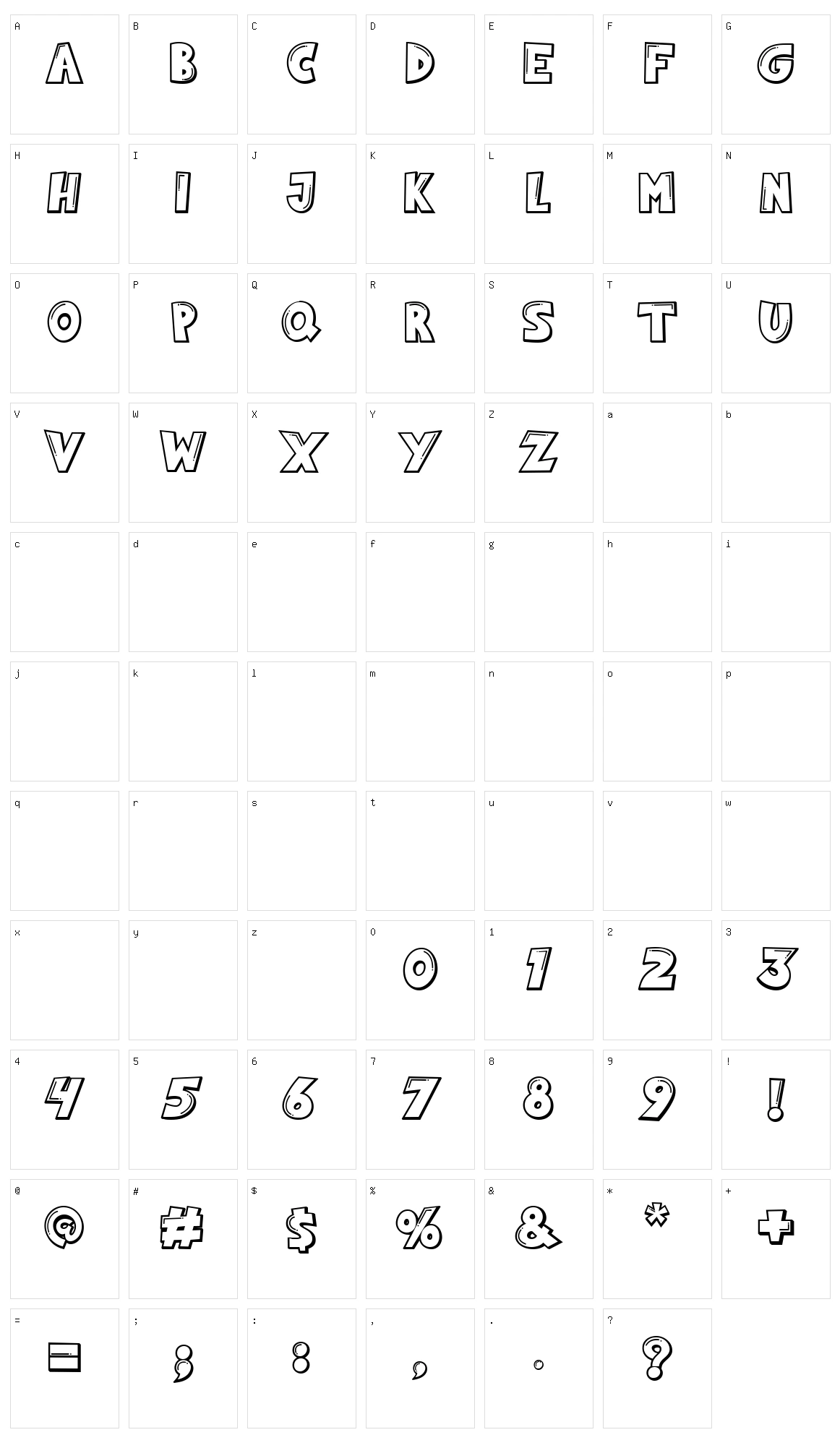
The free font Plastic Love is carefully designed by Vable Studio, showcasing a thoughtful balance of creativity and usability and falls under the Cartoon font style. When you download the ZIP file, it contains only 32.93 KB of font files, making it lightweight and quick to download. Please review the license details below to understand permitted usage and distribution rights. If license information is not available, we recommend using this font for personal projects only or contacting the author directly for commercial usage permissions.